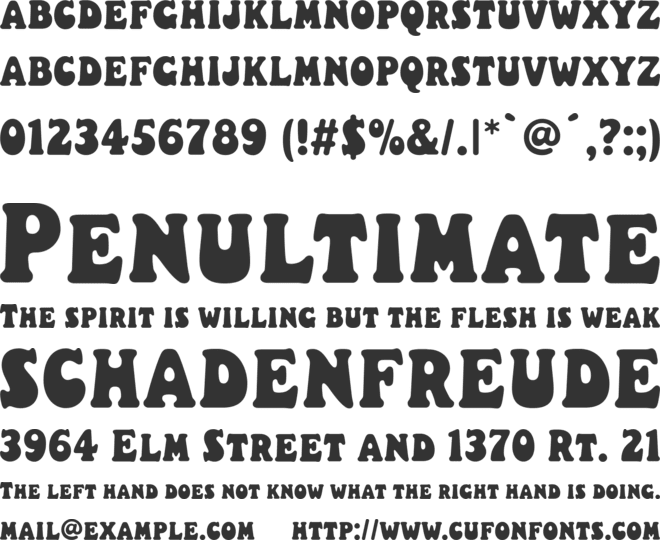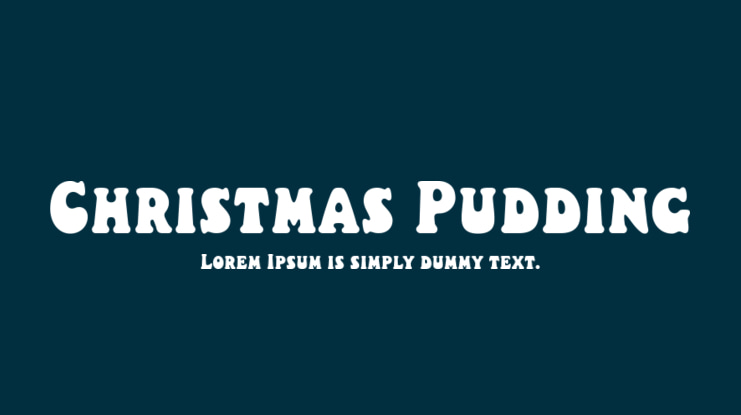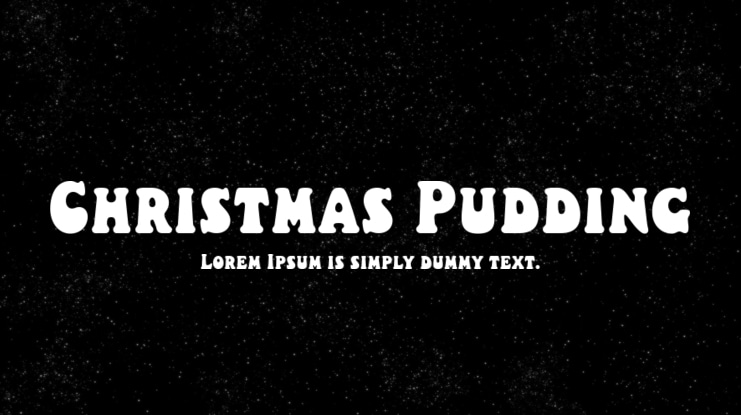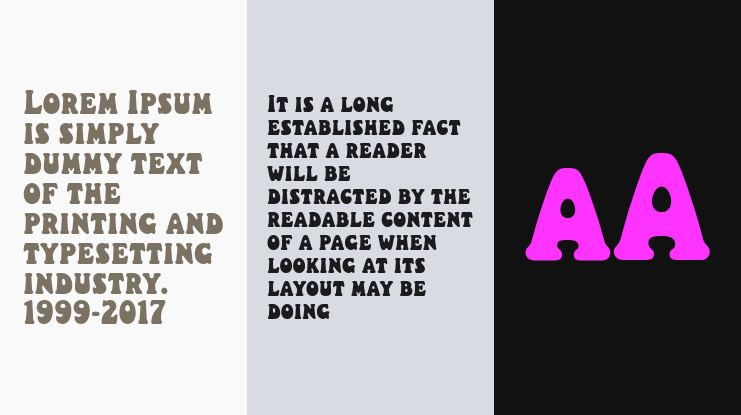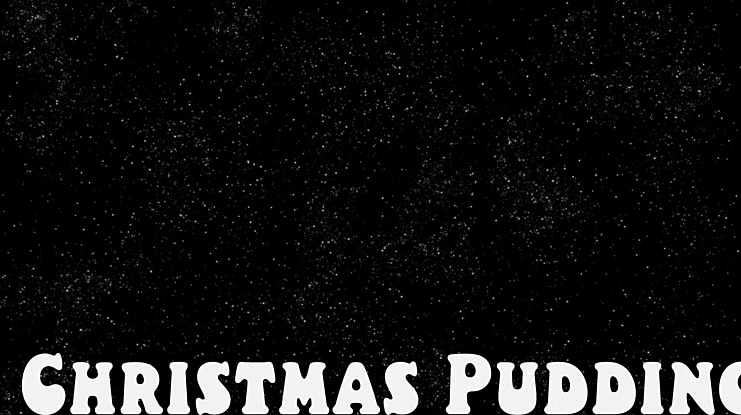
Christmas Pudding Font
Keith Bates
Christmas Pudding is a small caps fonts based on label lettering from a Christmas Pudding produced by the London Transport Food Production Centre, circa 1970.